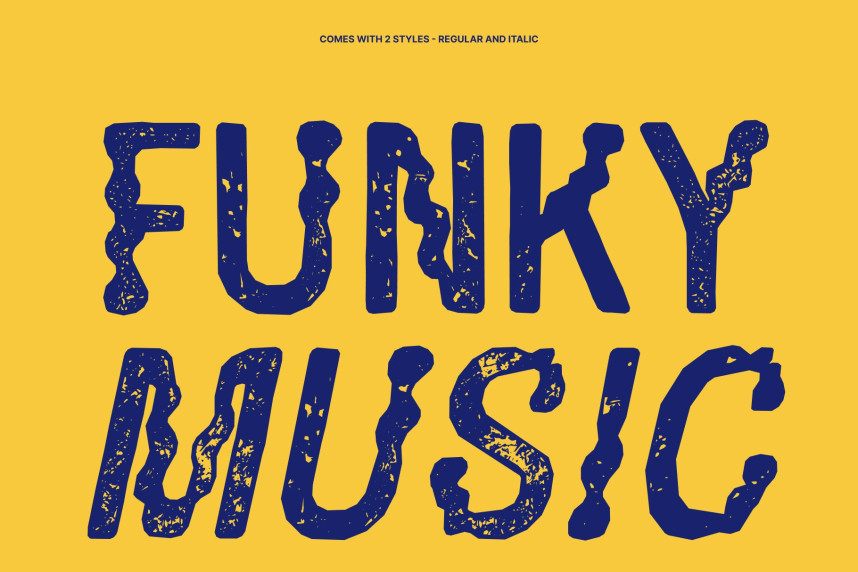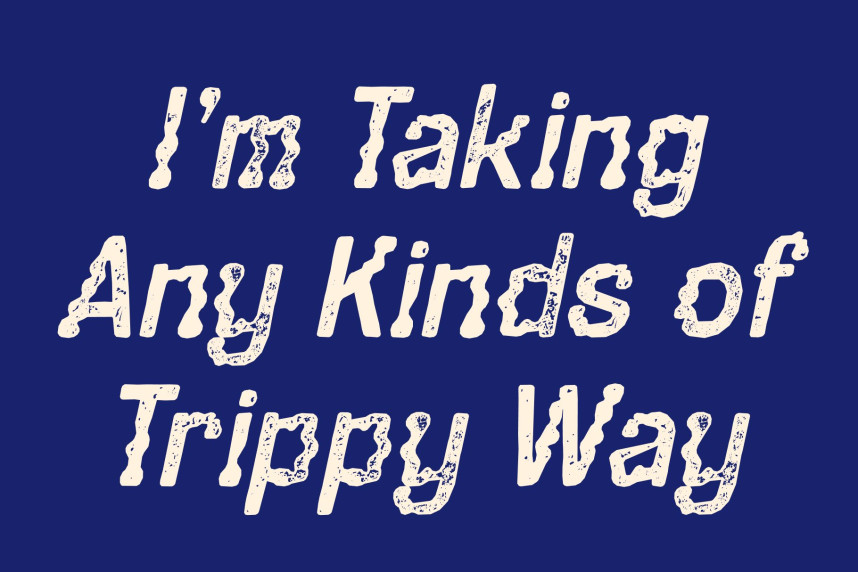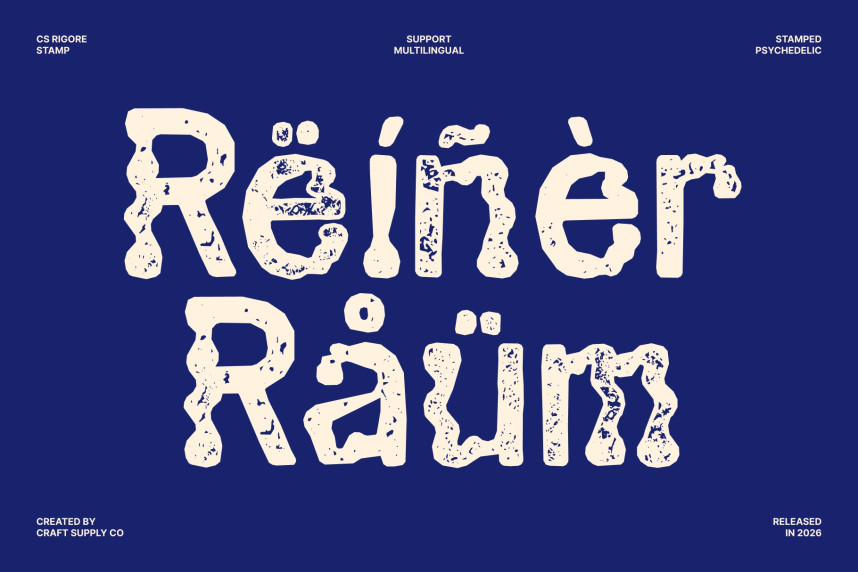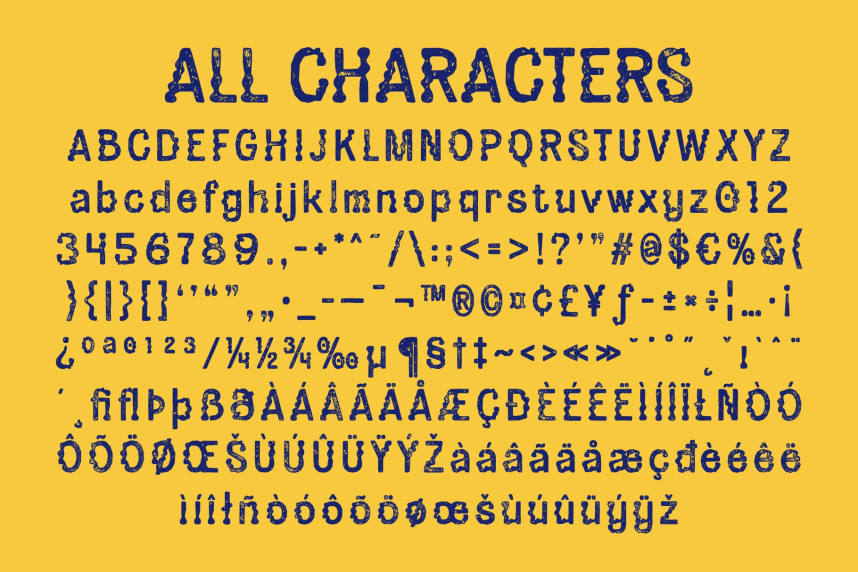
CS Rigore Stamp Font
CS Rigore Stamp Font – Modern Display Font: Where Trippy Expression Meets Vintage Stamp Texture
Playful, Funky Forms with Unconventional Energy
This is a modern display font that breaks away from conventional typography through its trippy, irregular shapes and energetic aesthetic. Featuring playful, funky, and unconventional strokes, it delivers a bold visual identity filled with creativity and personality. Every letterform feels expressive and dynamic, making the font a standout choice for designs that embrace originality and artistic freedom.